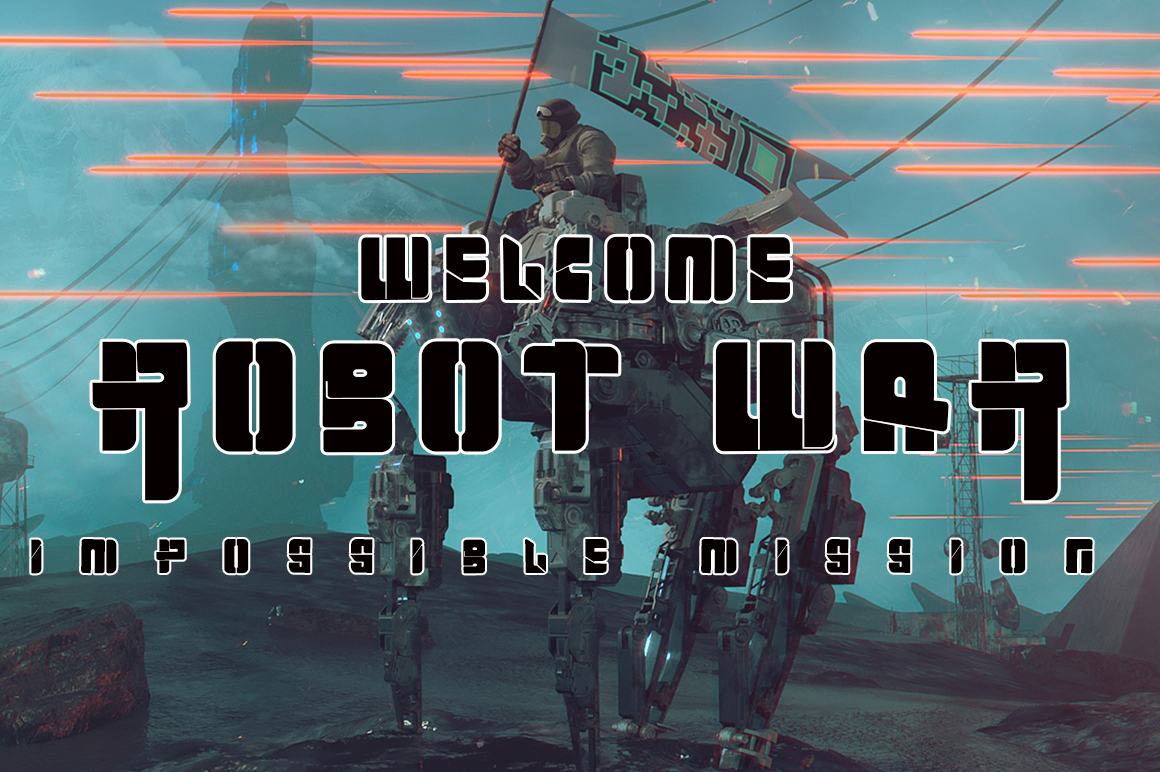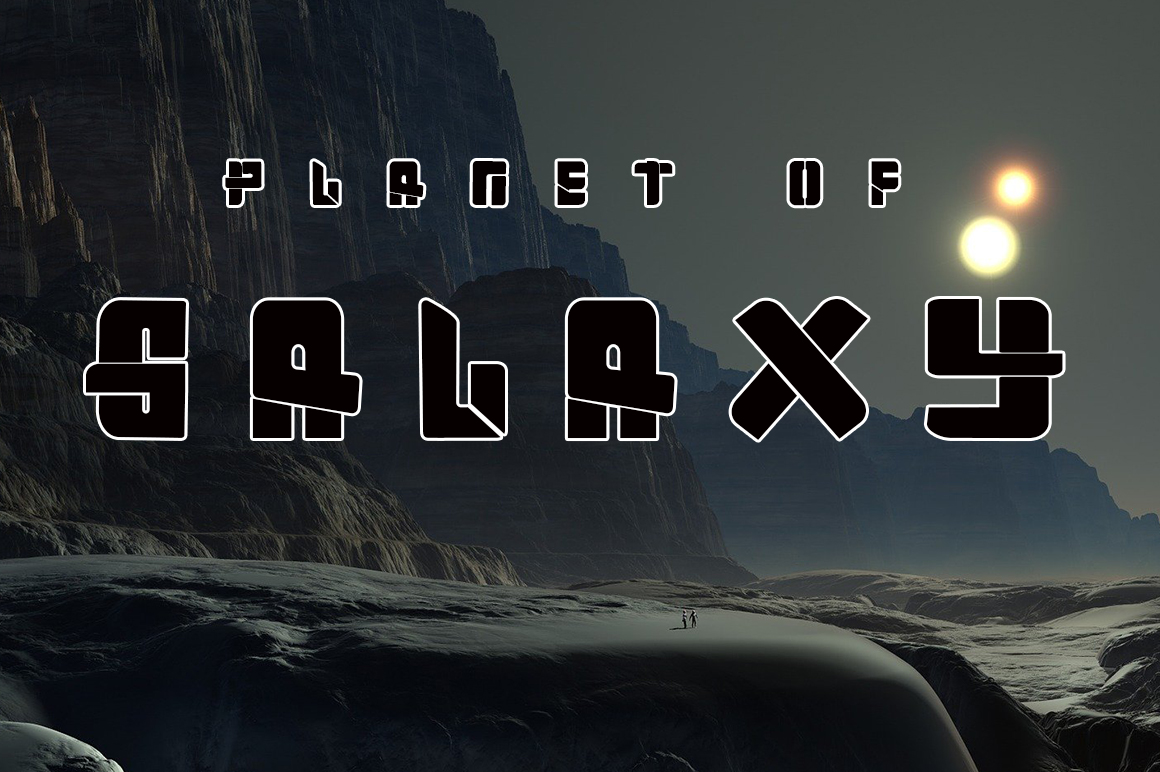
Designer Font
Designer Display Font
It’s a cool and futuristic display font. It looks bold and incredibly assertive. Add it confidently to your projects, and you will love the results.